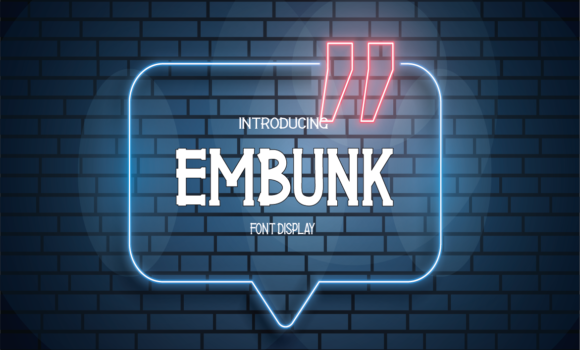
embunk
Embunk Font – Free Download Introduction to Embunk Font Embunk is a cool and natural serif font. 📸 Preview Gallery 6 images 📌 Product Name Embunk Font 👤 Author trabas_kriya 📂 Category Explore ⬇️ Download Embunk Font FREE Free Download